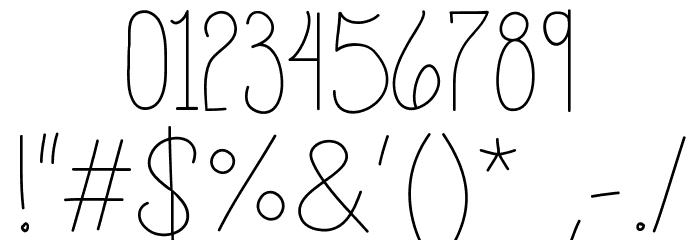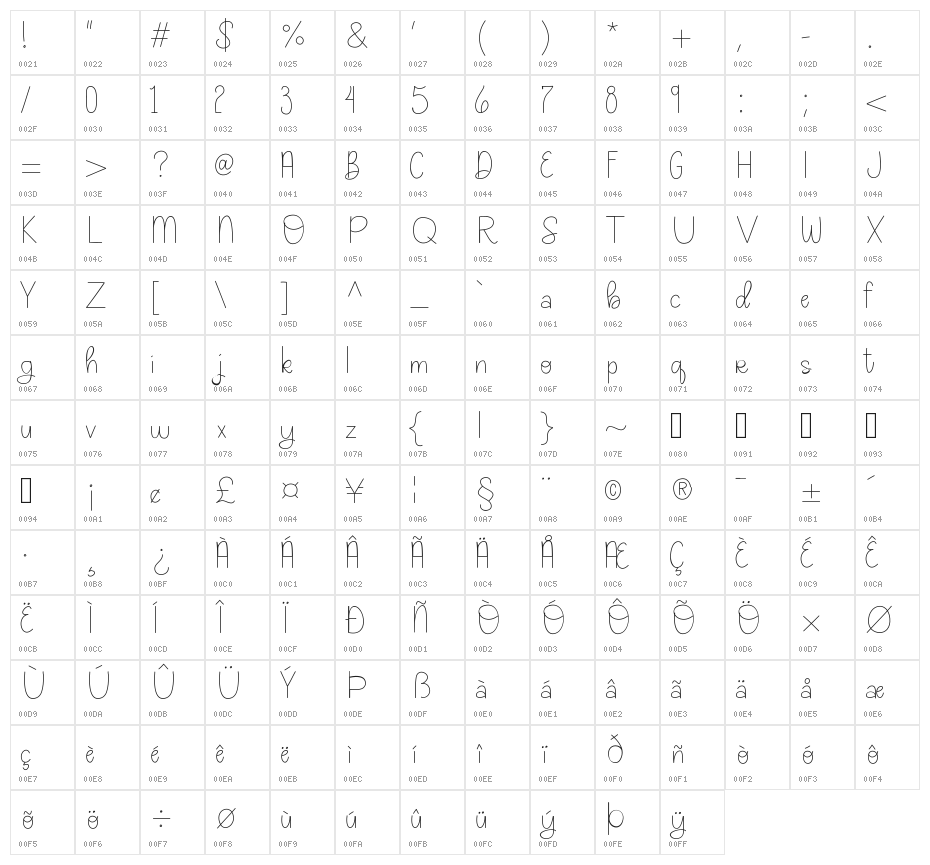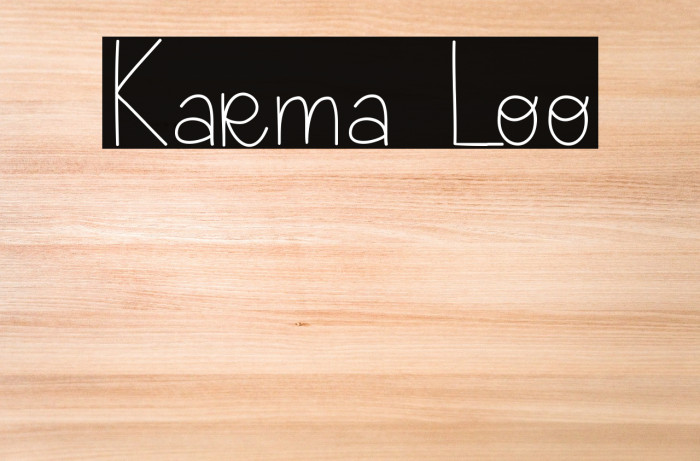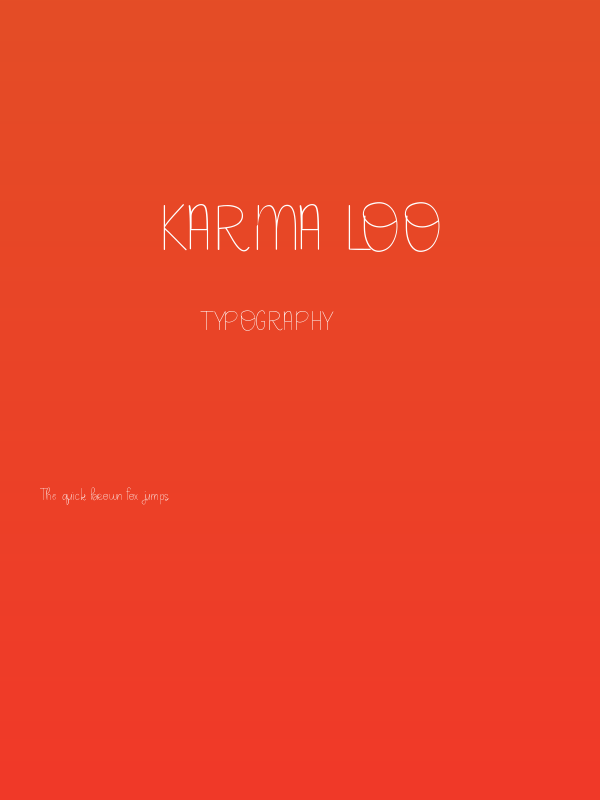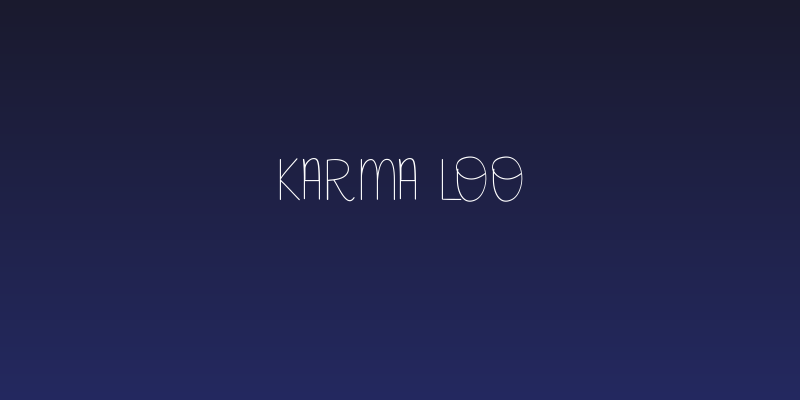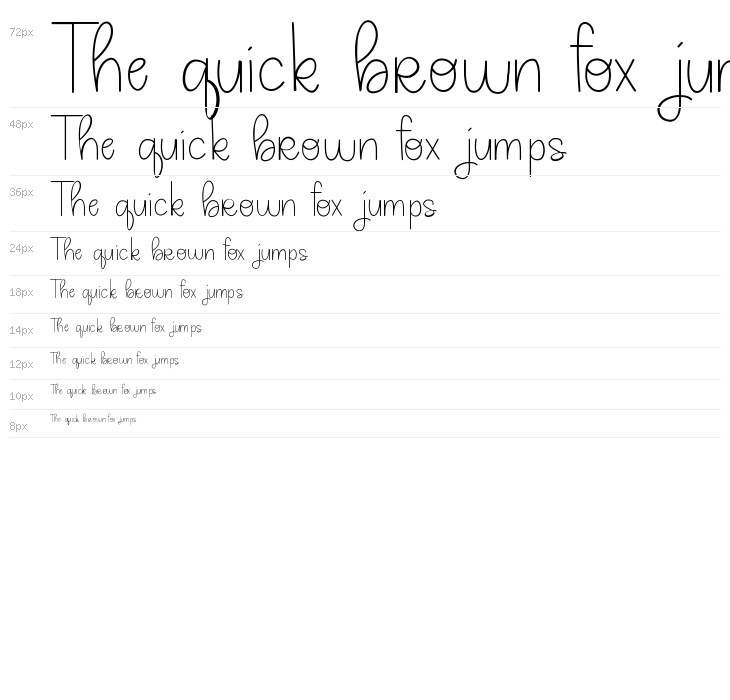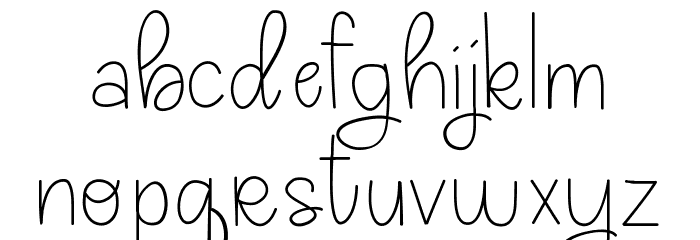
Karma Loo Font
Karma Loo Description
This font features a playful and whimsical design, characterized by its tall, narrow letters with a hand-drawn quality. The uppercase letters have a unique, slightly elongated appearance, while the lowercase letters incorporate charming loops and curves, adding to the font's overall quirky and informal style. The numbers and special characters maintain this playful aesthetic, making the font suitable for creative and lighthearted projects. The strokes are consistent in width, giving it a clean and modern look. The font's distinctive style makes it ideal for projects that require a touch of personality and fun.
| Proposed Projects | Ideal for children's books, greeting cards, playful branding, and creative posters. |